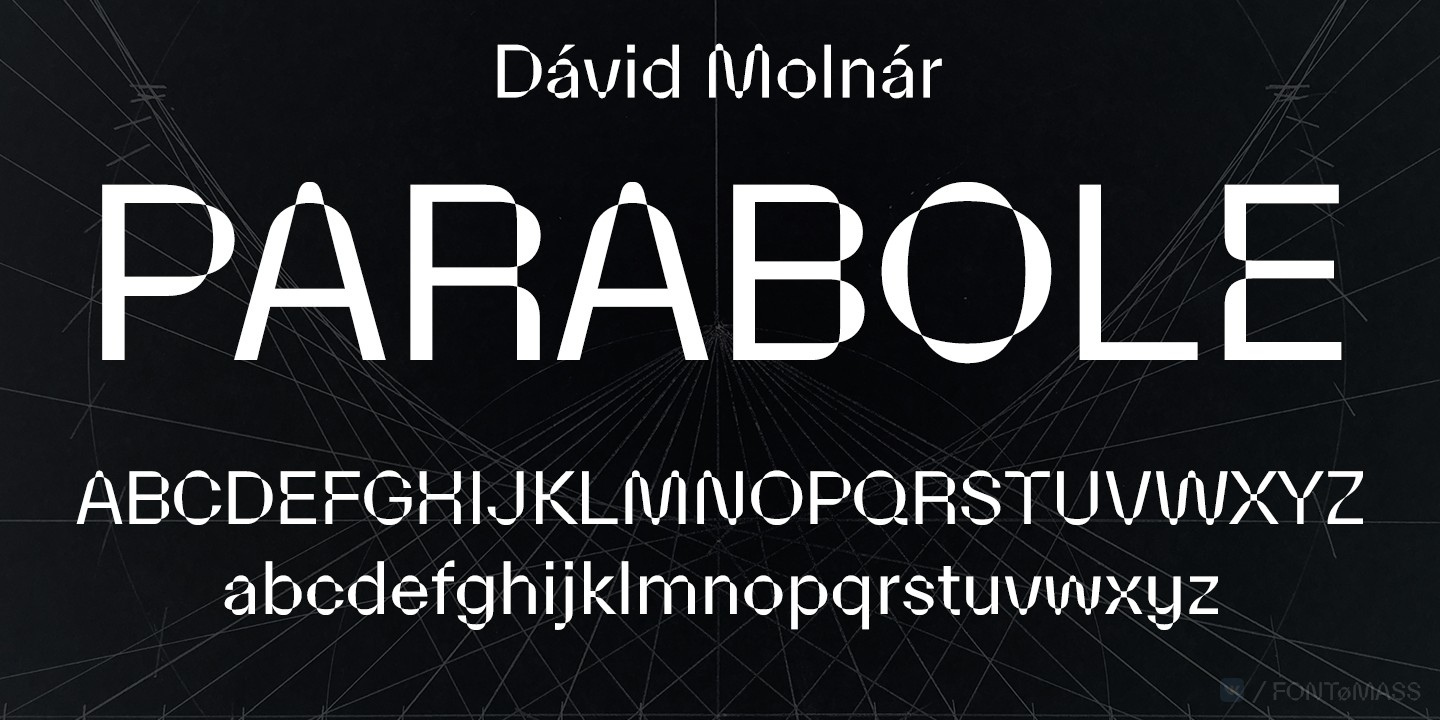
Parabole Font
Parabole Font is perfect for mathematical education materials, scientific research presentations, architectural curve analysis, engineering documentation, geometric design projects, academic mathematics publishing, technical illustration graphics, and precise mathematical communications.
What makes Parabole Font exciting is its mathematical precision that embodies the elegant curves and systematic beauty of geometric mathematics with scientific authenticity and mathematical sophistication. The font features curved letterforms with parabolic proportions and mathematical character that evoke geometric equations, architectural arches, and the systematic elegance of mathematical curves and scientific precision. Its distinctive mathematical styling and geometric appeal communicate accuracy, intelligence, and scientific excellence, making every message feel calculated with mathematical precision and touched by the elegant beauty of parabolic curves and geometric mathematical perfection.
The Parabole Font family includes regular weight with uppercase and lowercase letters, numerals, punctuation marks, and comprehensive mathematical symbols. Premium versions often feature multiple weights and geometric alternates that enhance the mathematical, scientific aesthetic perfect for educational and technical applications.
The geometric character of Parabole Font makes it particularly valuable for mathematics departments, engineering firms, and scientific research institutions. Its excellent readability ensures mathematical content and scientific communications remain clear while maintaining the distinctive geometric aesthetic that appeals to academics seeking authentic mathematical experiences and scientific precision.
Mathematical education marketers appreciate how Parabole Font effortlessly conveys scientific authenticity and mathematical elegance. The font's curved proportions and geometric details create authoritative educational materials that establish trust with audiences who value mathematical accuracy, scientific innovation, and the elegant beauty of parabolic mathematics and geometric scientific excellence.
The versatile precision of this typeface extends to architectural design, scientific consulting, and mathematical software where geometric authenticity enhances scientific credibility and mathematical appeal. Parabole Font Free Download provides creative professionals with an essential tool for developing memorable, precision-driven designs that resonate with audiences who embrace mathematical excellence, geometric beauty, and the curved elegance of parabolic mathematics in their educational and scientific experiences.